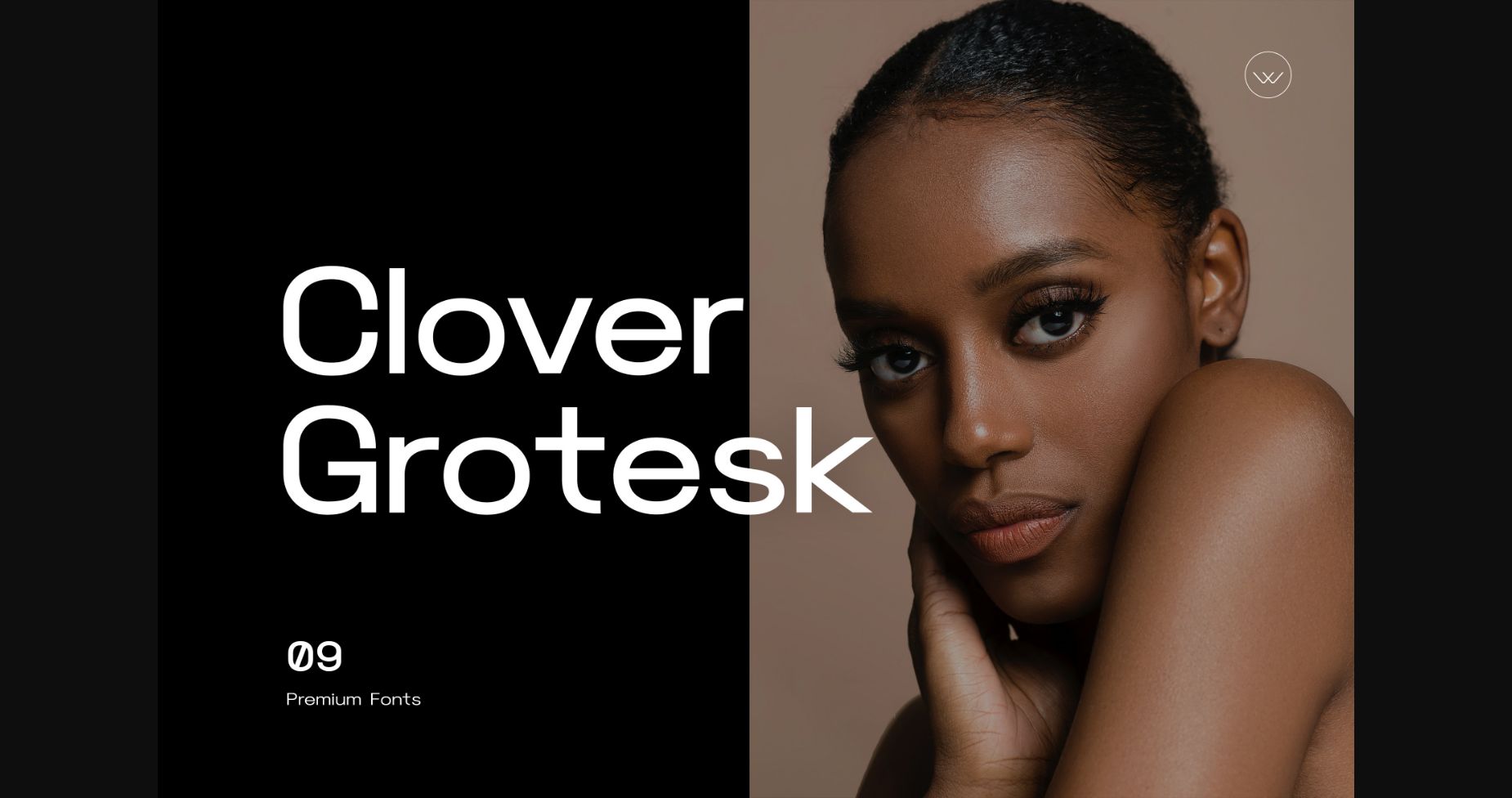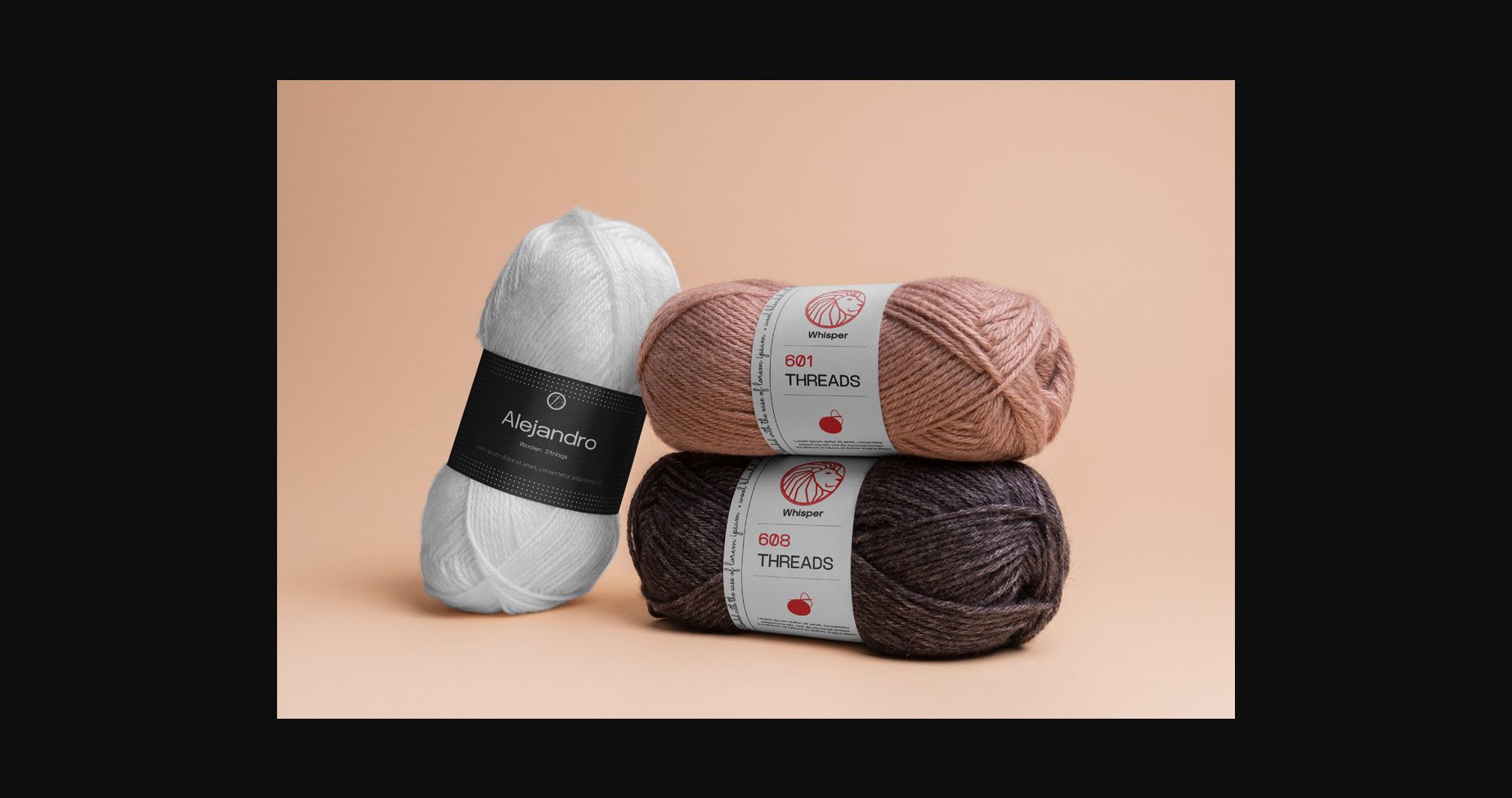
About Clover Grotesk Font
Clover Grotesk is a deluxe and exclusive sans-serif font that exudes elegance and sophistication. With its clean, modern lines and refined details, each letter is a masterpiece that commands attention. Perfect for high-end branding, editorial design, and any project that requires a touch of luxury and exclusivity.